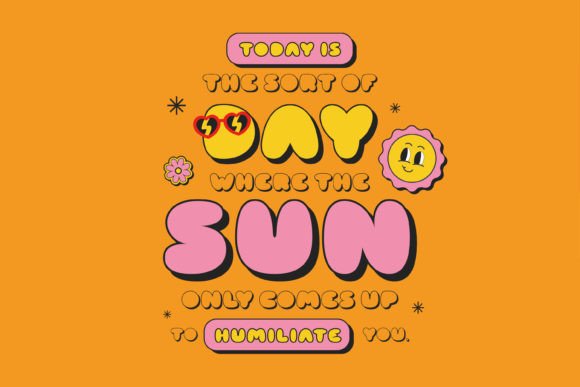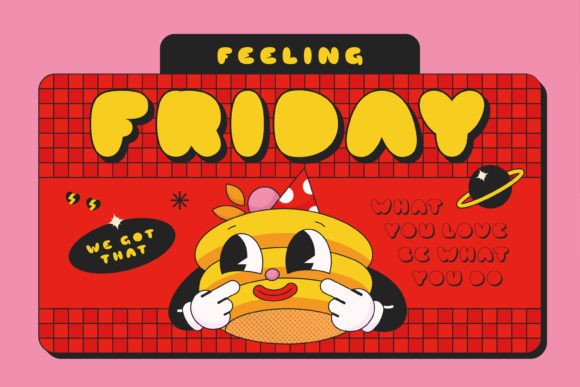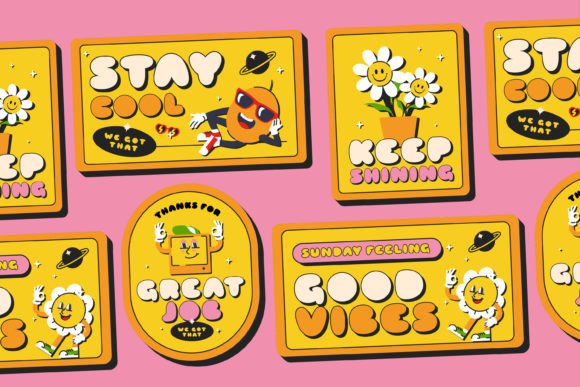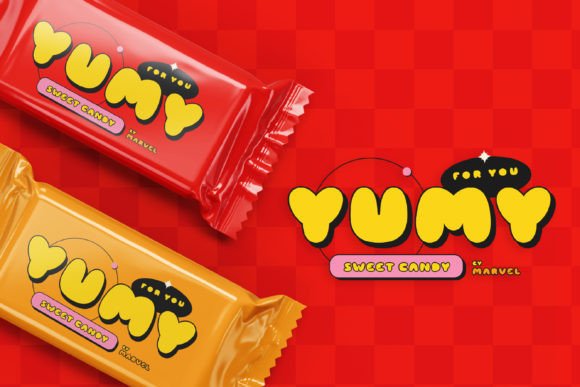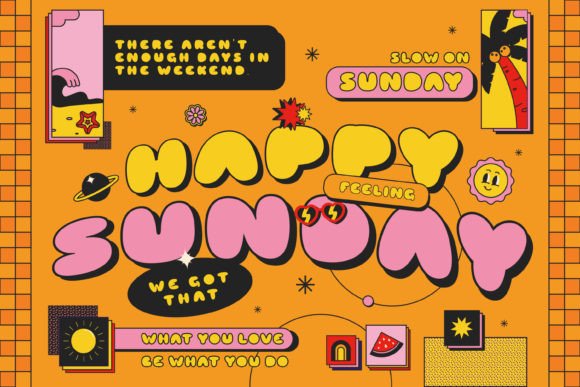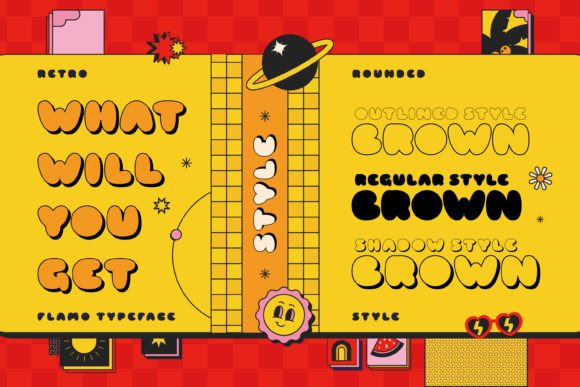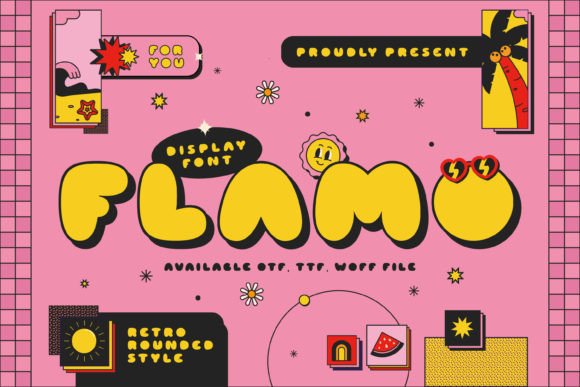
Introducing Flamo Font: The Ultimate Display Font for Bold Statements
Are you tired of using the same old fonts for your designs? Do you want to make a bold statement and grab the attention of your audience? Look no further than Flamo Font, an extremely bold and nicely-rounded display font that’s perfect for any text that needs to stand out and impress!
What is Flamo Font?
Flamo Font is a stunning display font that’s designed to make a lasting impression. Its bold and rounded edges give it a unique and modern look that’s sure to turn heads. Whether you’re working on a poster, banner, flyer, book cover, or any other design project, Flamo Font is the perfect choice.
Key Features of Flamo Font
- Extremely Bold: Flamo Font is designed to be seen and heard. Its bold and sturdy design makes it perfect for headlines, titles, and any other text that needs to stand out.
- Nicely-Rounded: The rounded edges of Flamo Font give it a friendly and approachable feel that’s perfect for designs that need to convey a sense of warmth and approachability.
- Highly Versatile: Flamo Font is perfect for a wide range of design projects, from posters and banners to flyers and book covers.
- Easily Readable: Despite its bold design, Flamo Font is surprisingly easy to read, making it perfect for designs that need to communicate a message quickly and effectively.
Why Choose Flamo Font?
So why choose Flamo Font over other display fonts on the market? Here are just a few reasons:
- Unique Design: Flamo Font has a unique and modern design that’s sure to set your designs apart from the crowd.
- Attention-Grabbing: With its bold and rounded edges, Flamo Font is designed to grab attention and draw the eye.
- High-Quality: Flamo Font is a high-quality font that’s designed to deliver exceptional results in any design project.
How to Use Flamo Font
Using Flamo Font is easy. Here are just a few tips to get you started:
- Pair it with Other Fonts: Flamo Font pairs well with other fonts, making it easy to create stunning contrast and visual interest in your designs.
- Use it for Headlines: Flamo Font is perfect for headlines and titles, where its bold design can really make an impact.
- Experiment with Colors: Flamo Font looks great in a wide range of colors, so don’t be afraid to experiment and find the perfect hue for your design.
Design Ideas Using Flamo Font
Here are just a few design ideas to get you started with Flamo Font:
- Posters: Use Flamo Font to create eye-catching posters that grab attention and communicate a message.
- Banners: Flamo Font is perfect for banners, where its bold design can really make an impact.
- Flyers: Use Flamo Font to create stunning flyers that stand out from the crowd.
- Book Covers: Flamo Font is a great choice for book covers, where its bold design can help to grab attention and draw the eye.
In conclusion, Flamo Font is an exceptional display font that’s perfect for any design project that needs to make a bold statement. Its unique and modern design, combined with its bold and rounded edges, make it a standout choice for designers and crafters. So why wait? Download Flamo Font today and start creating stunning designs that grab attention and impress!